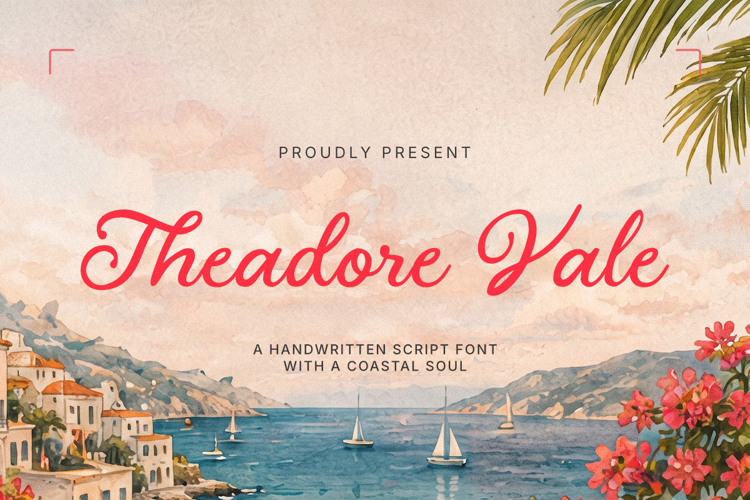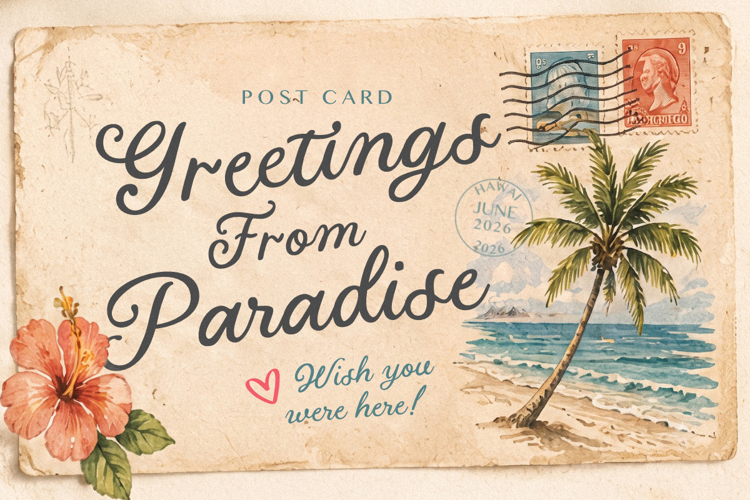
Theadore Vale Font
Theadore Vale is a handwritten script font that captures the feeling of ocean breezes, handwritten travel memories, and artisan craftsmanship. Built with smooth monoline strokes and graceful connections, it combines casual elegance with strong readability, making it equally effective for branding and display typography.